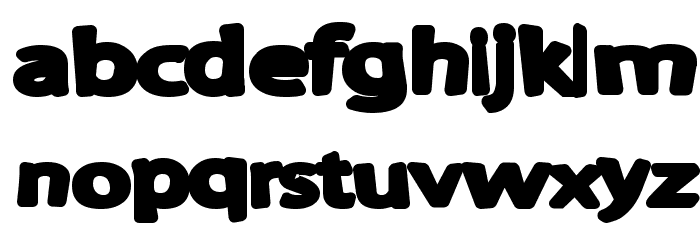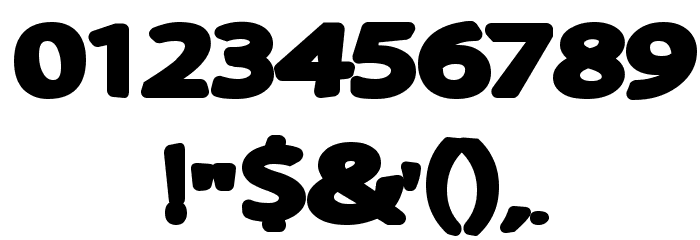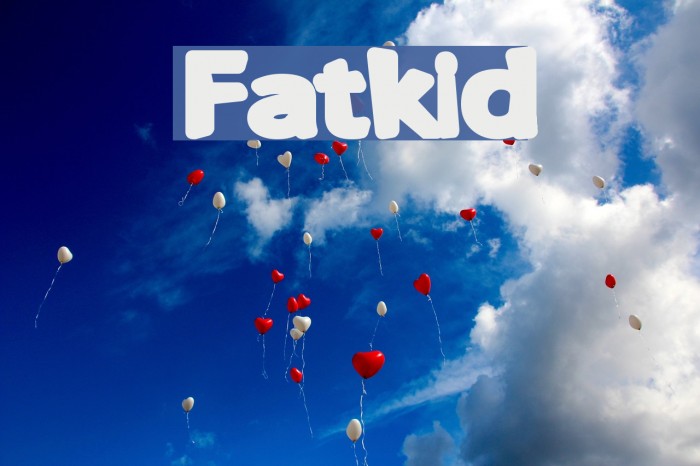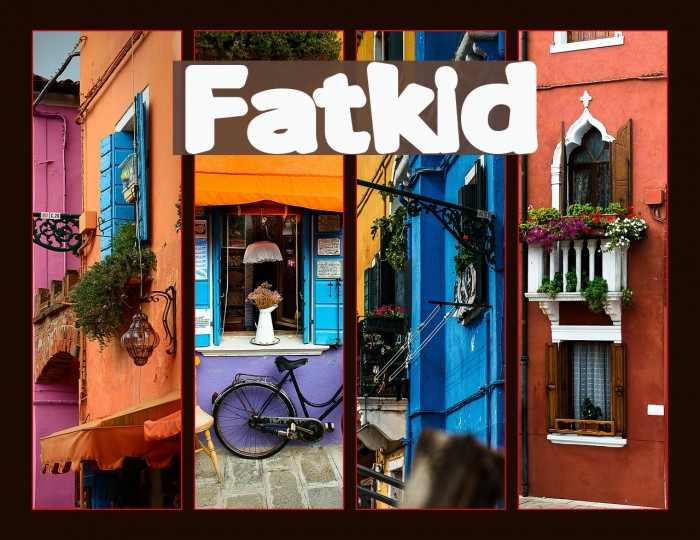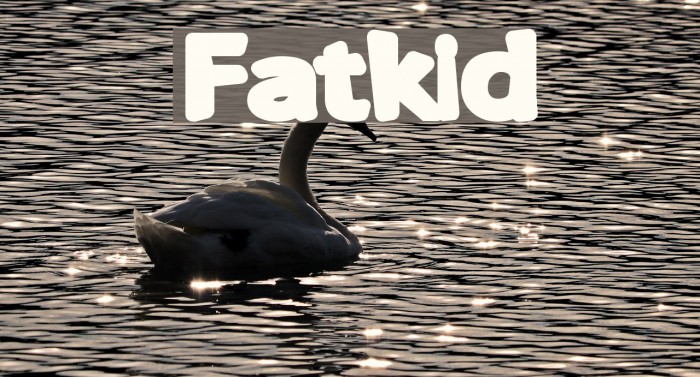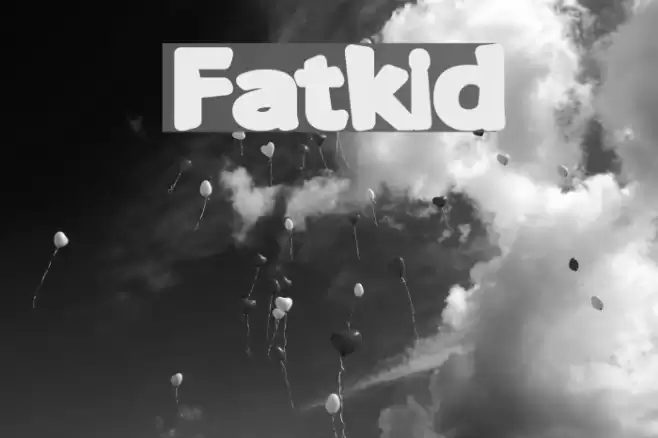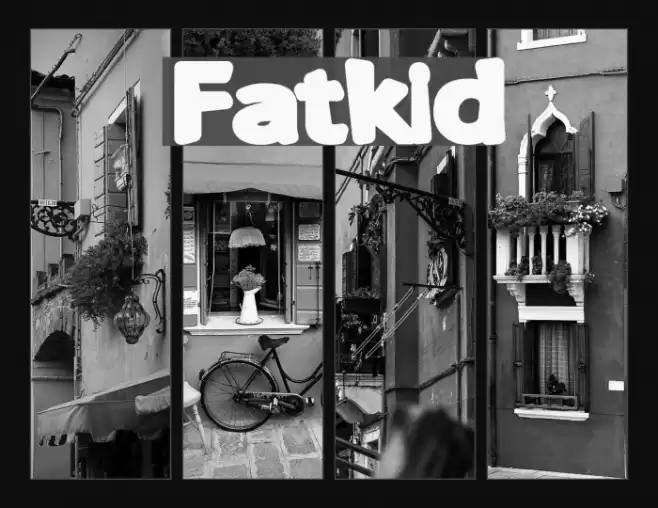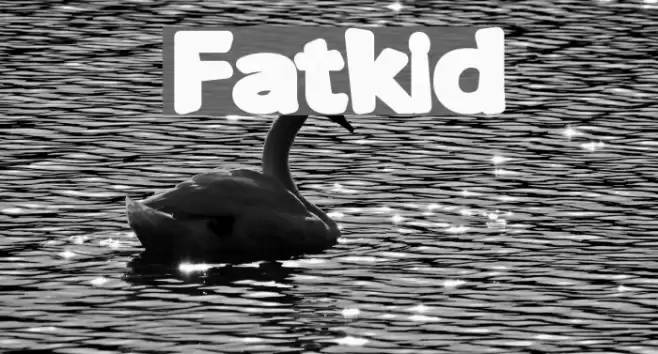
Fatkid Font
This font features a bold, playful style with rounded edges and a substantial weight, giving it a friendly and approachable appearance. The characters are uniformly thick, contributing to a cohesive and solid look. The uppercase and lowercase letters maintain a consistent style, with slight variations in curvature that add a touch of whimsy. The numbers and special characters follow the same design principles, ensuring a harmonious overall appearance. The font's boldness and rounded forms make it particularly suitable for projects that require a fun and engaging visual impact.
A bold, playful font with rounded edges and a cohesive, friendly appearance.
- Proposed Projects: Ideal for children's books, playful branding, posters, and any design needing a fun and approachable vibe.
- Overall Style: Playful, Fun